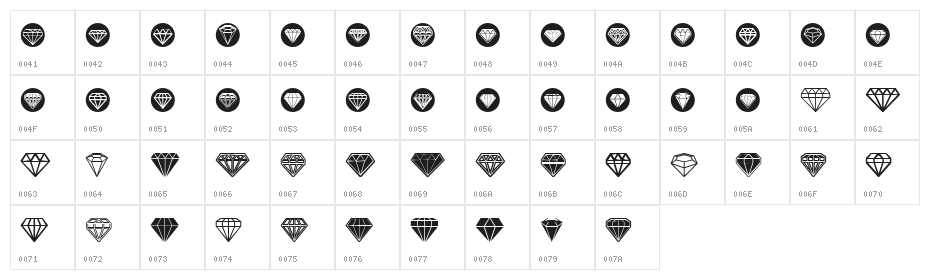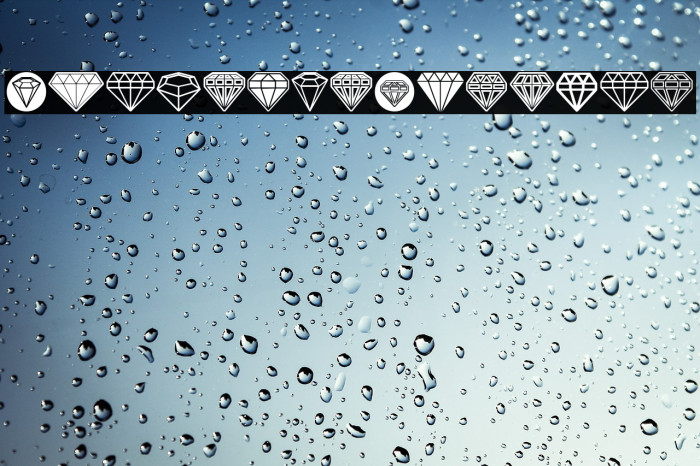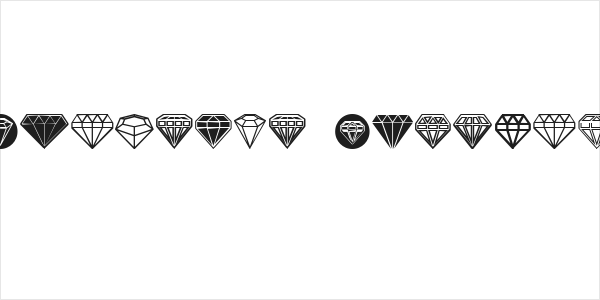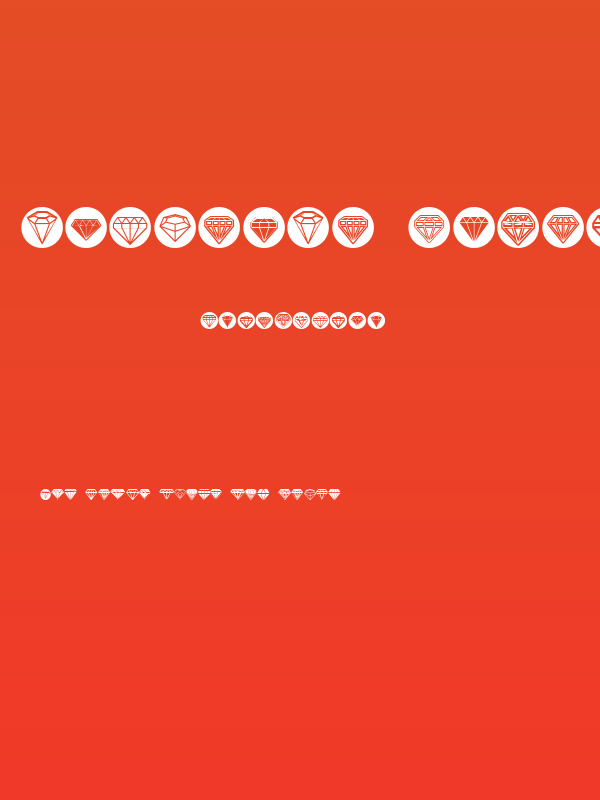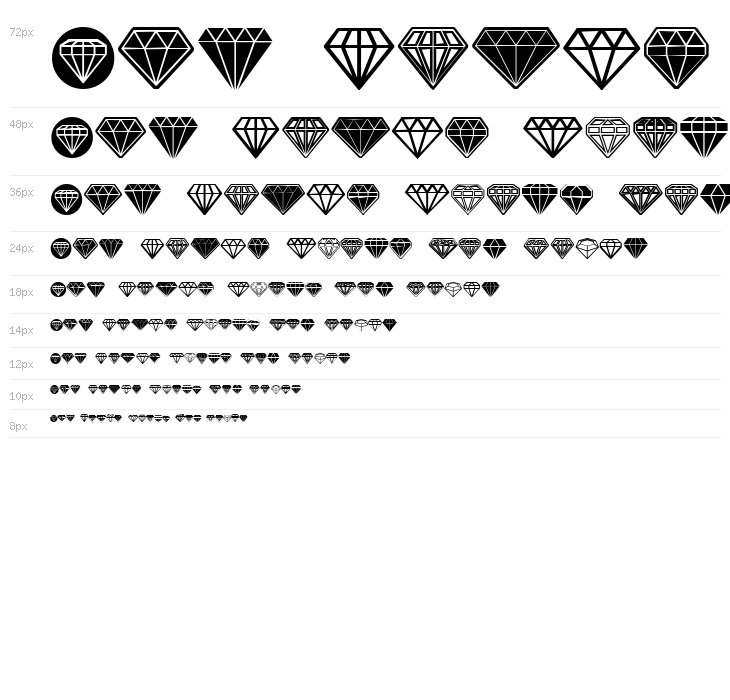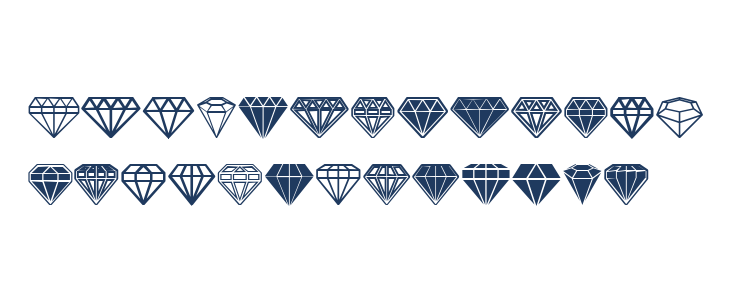
Diamondo Regular Font
Diamondo Regular Description
A decorative dingbat font featuring a variety of diamond and gemstone icons, each rendered with geometric linework and some enclosed in solid black circles, offering both filled and outline styles.
| Overall Style | Decorative, Modern, Geometric |
| Use Case | Logos, Icons, Decorative elements |
| Proposed Projects | Jewelry branding, luxury packaging, event invitations, decorative dividers, logo accents, social media graphics. |